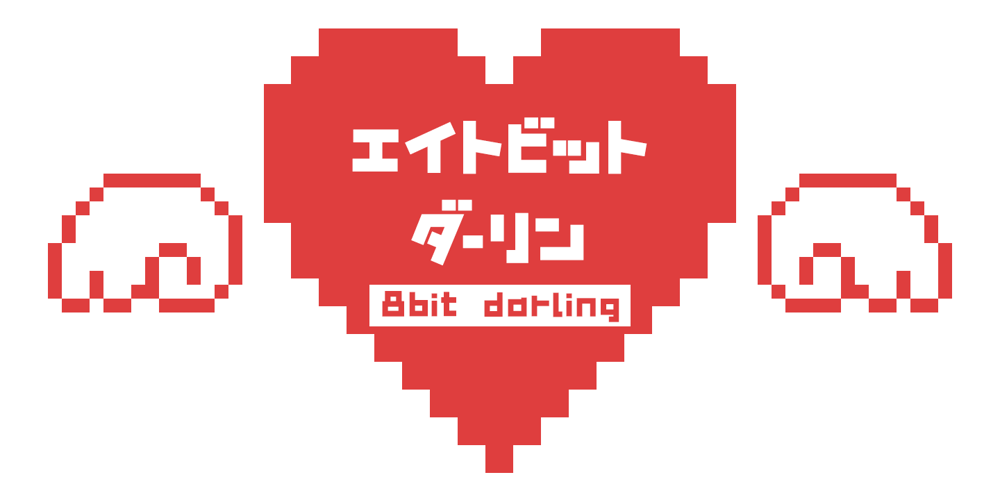
8 bit Darling Font Family was designed by Norio Kanisawa and published by Norio Kanisawa. 8 bit Darling contains 1 styles and family package options. “8bit darling” is digital taste font. I think digital fonts are bitmap fonts generally, but dared to make digital fonts that are not bitmap fonts and made it. The name “8bit darling” borrowed a name from my favorite song. I made it consciously that it is a digital style but not so much inorganic. It contains hiragana, katakana, alphanumeric characters, some symbols. Horizontal writing only, vertical writing is not possible. Although it is slightly unique, I think choose a scene to use too much. I would be pleased if it could help you. <「エイトビットダーリン」紹介文> カクカクしたデジタル風のフォントです。 デジタル風のフォントといえばビットマップフォントかと一般的には思うのですが、敢えてビットマップフォントではないデジタル風のフォントを作りたいと思って作りました。 「エイトビットダーリン」という名前は私の好きな曲から名前を拝借しました。 デジタル風ではあるけれどもあまり無機質にならないように、と意識して作りました。 収録文字はひらがな、カタカナ、英数字、一部記号です。横書き専用、縦書きはできません。 ちょっと個性的ですがあまり使う場面を選ばないかと思います。 みなさまのお役に立てれば幸いです。 <スタイルカテゴリー> 角ゴシック